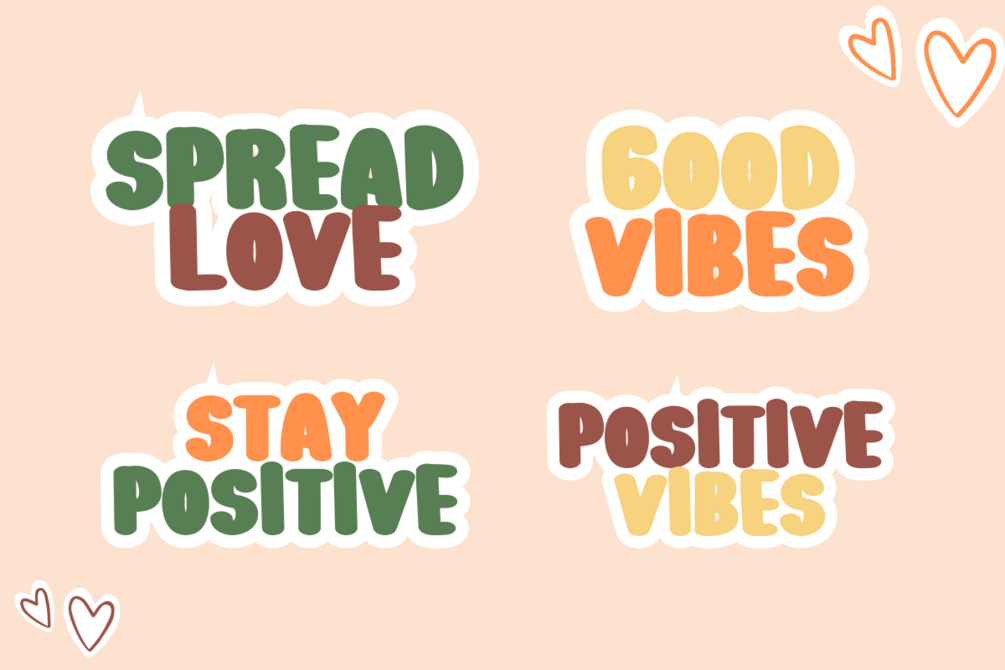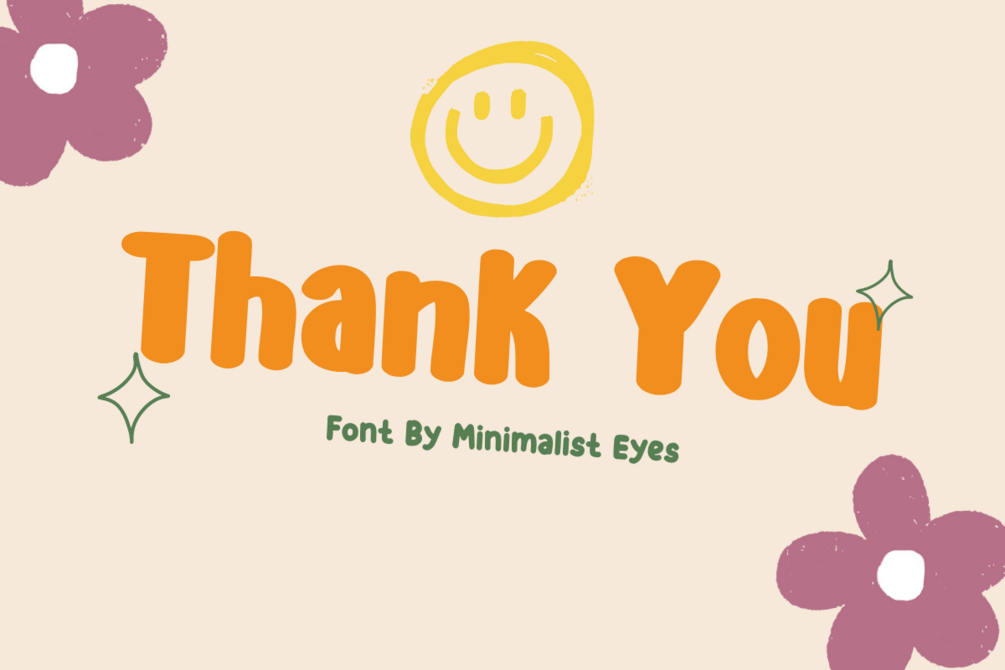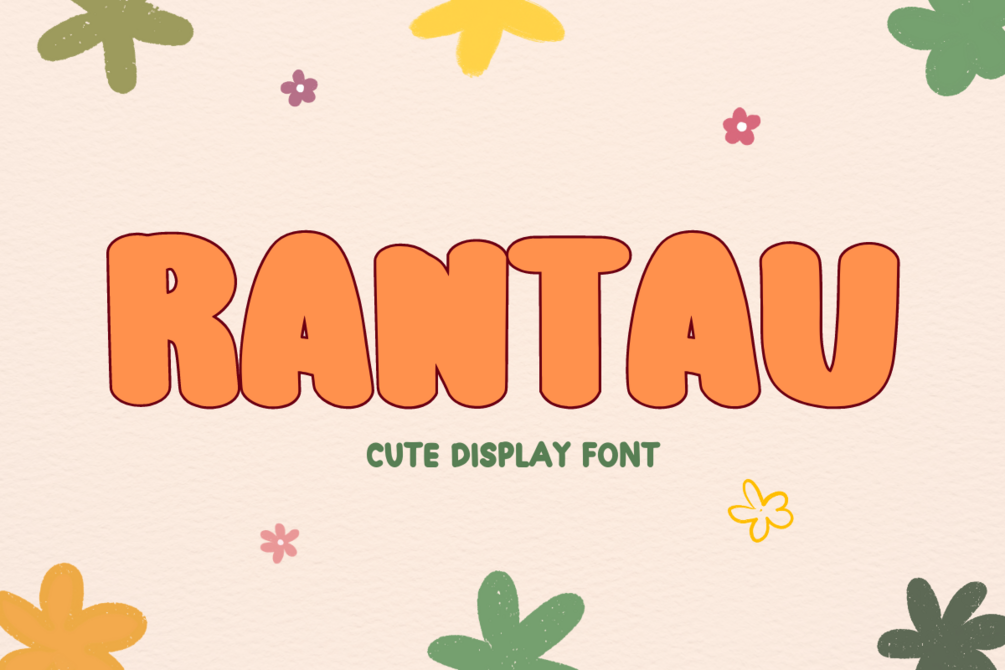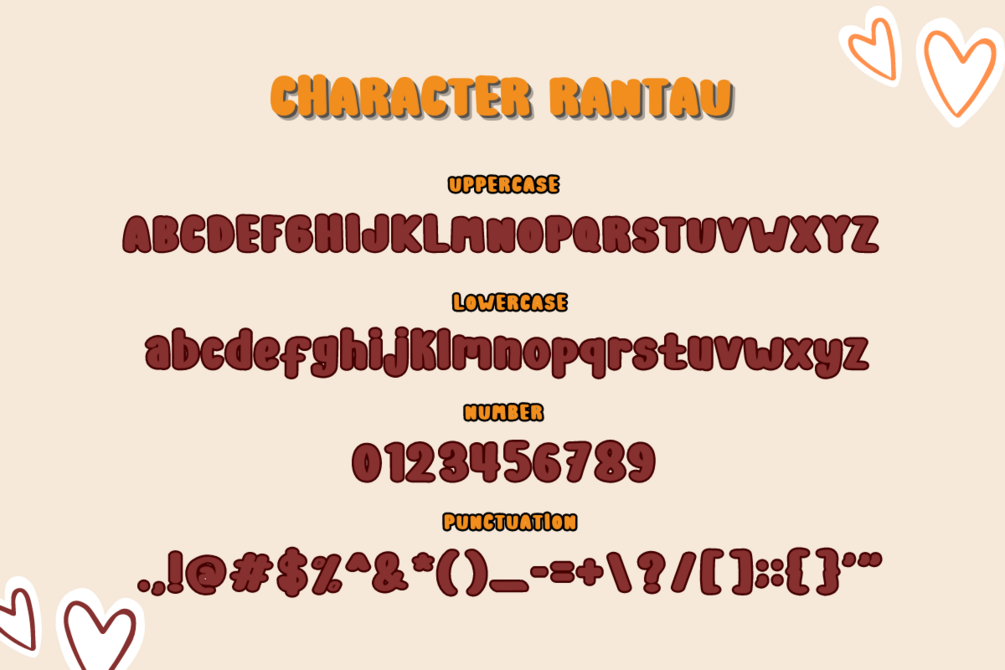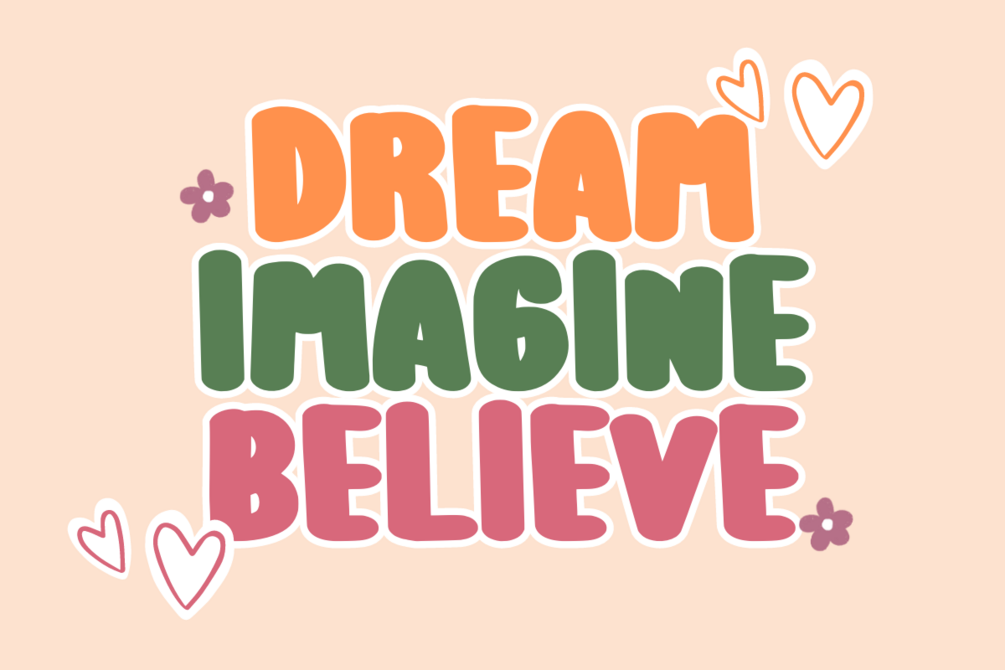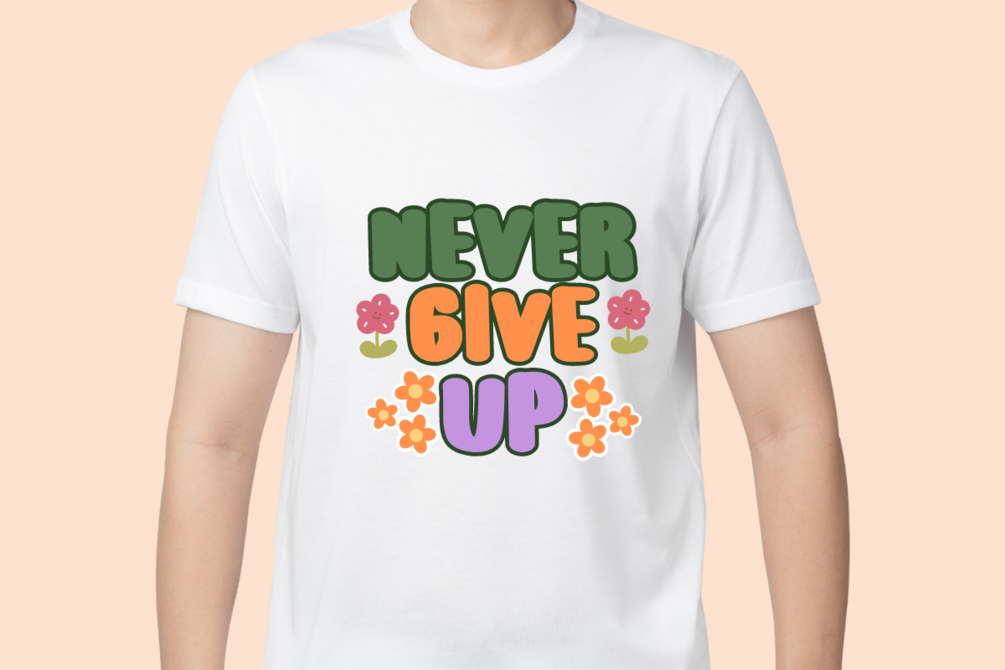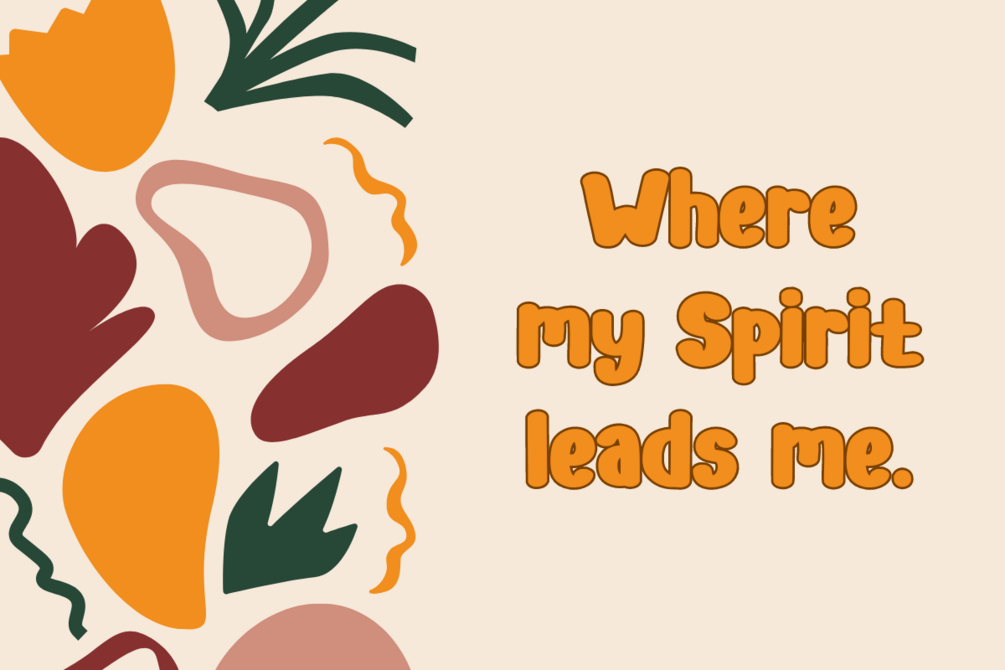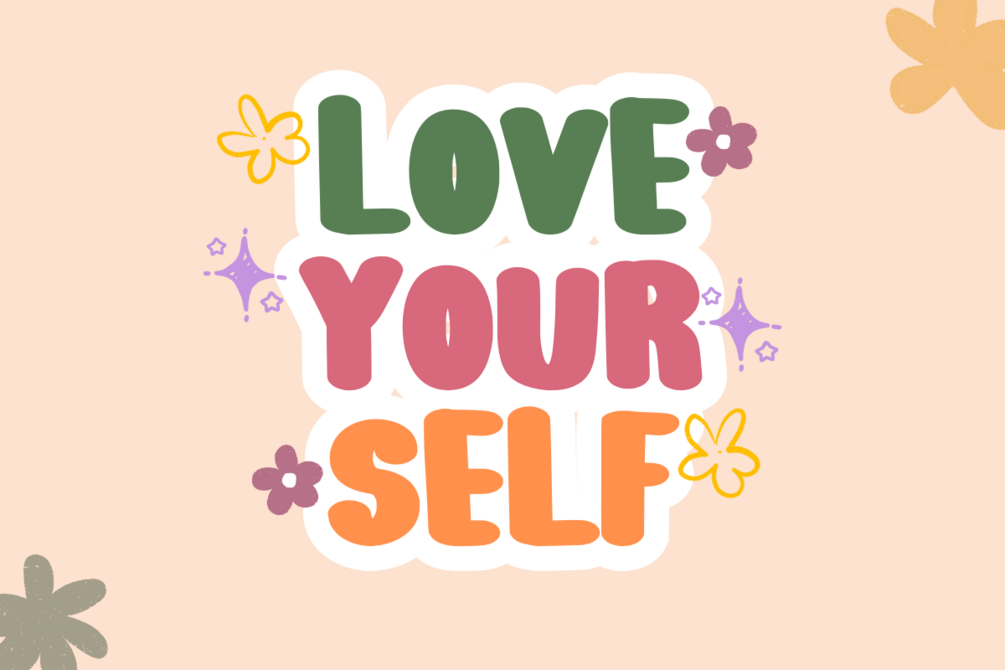
Rantau - Cute Display Font
The Rantau is a dynamic display font that exudes positivity and optimism. With its bold and unique typefaces, this font is designed to grab attention and spread joy. Perfect for adding a playful and upbeat touch to headlines, posters and other creative projects. Get inspired by her unique and beautiful style and add it to your favorite designs!